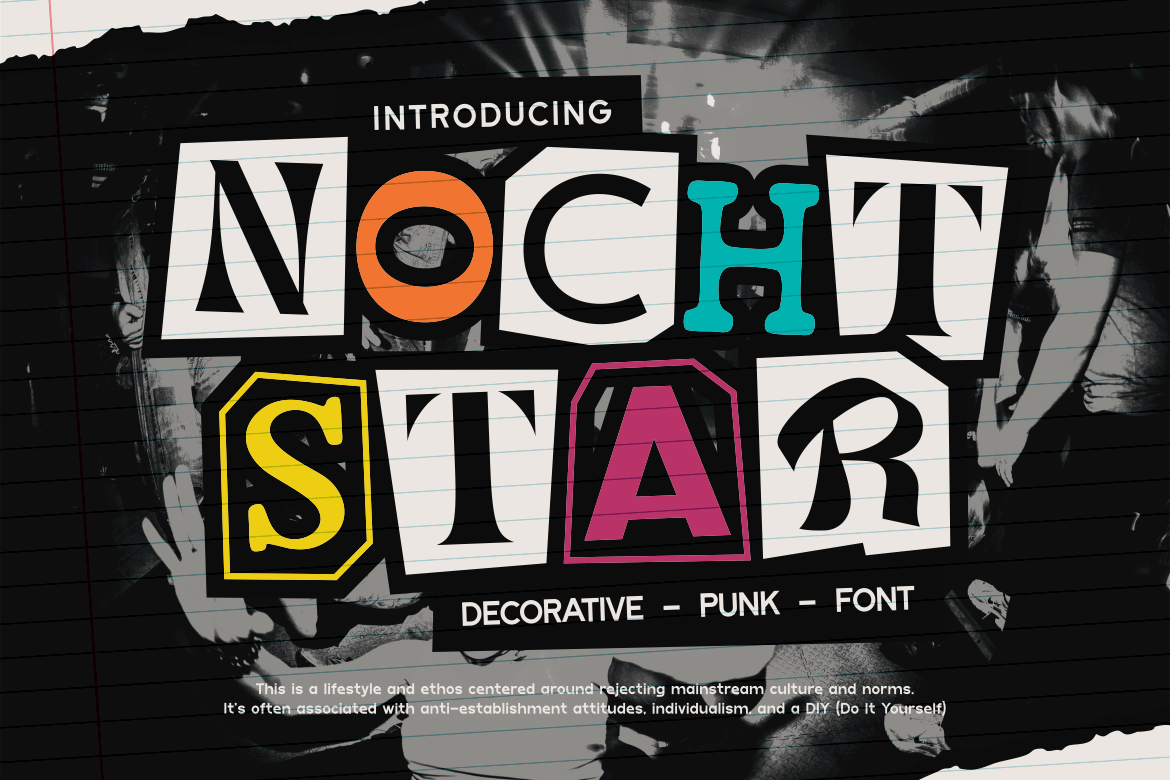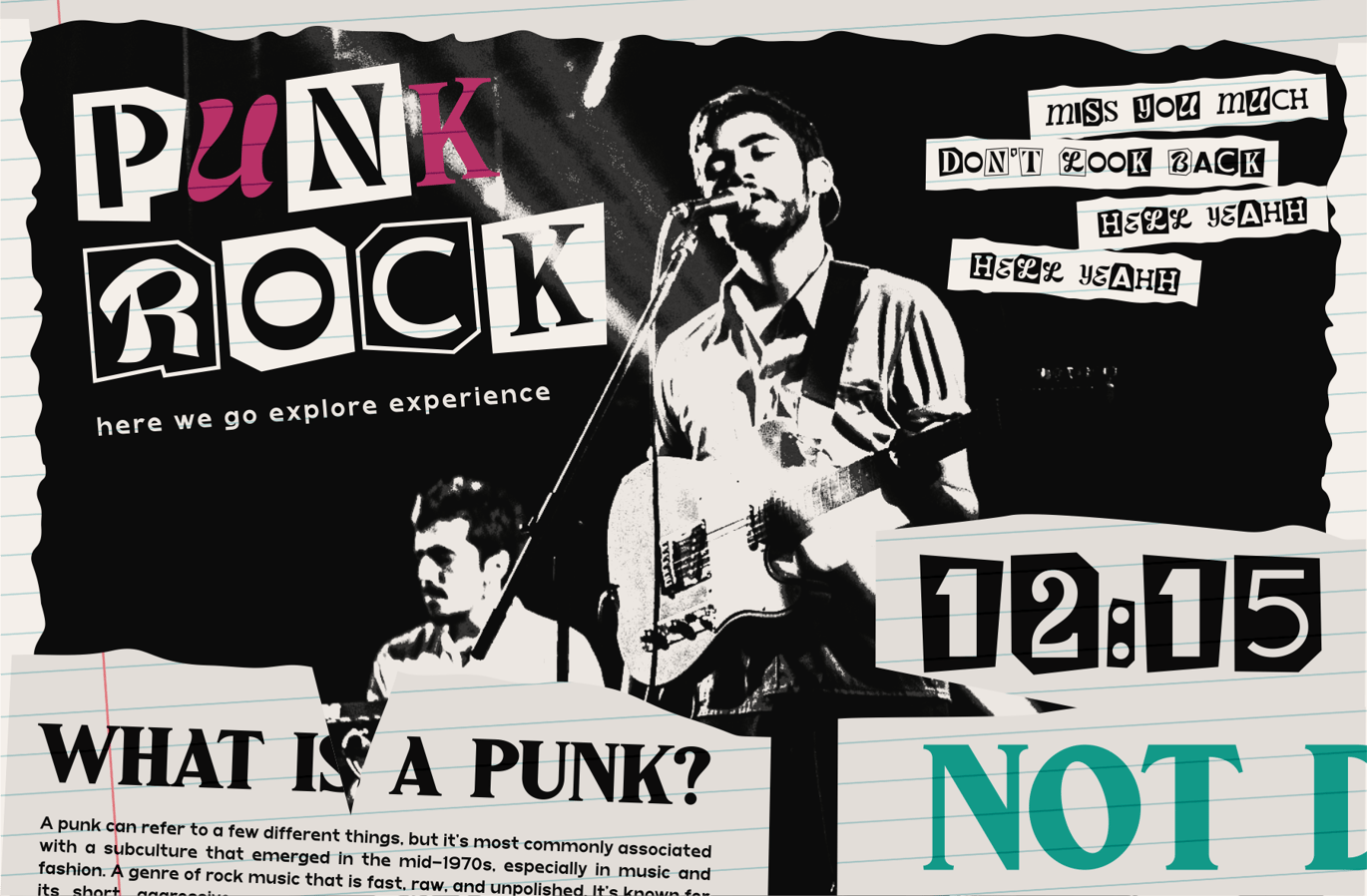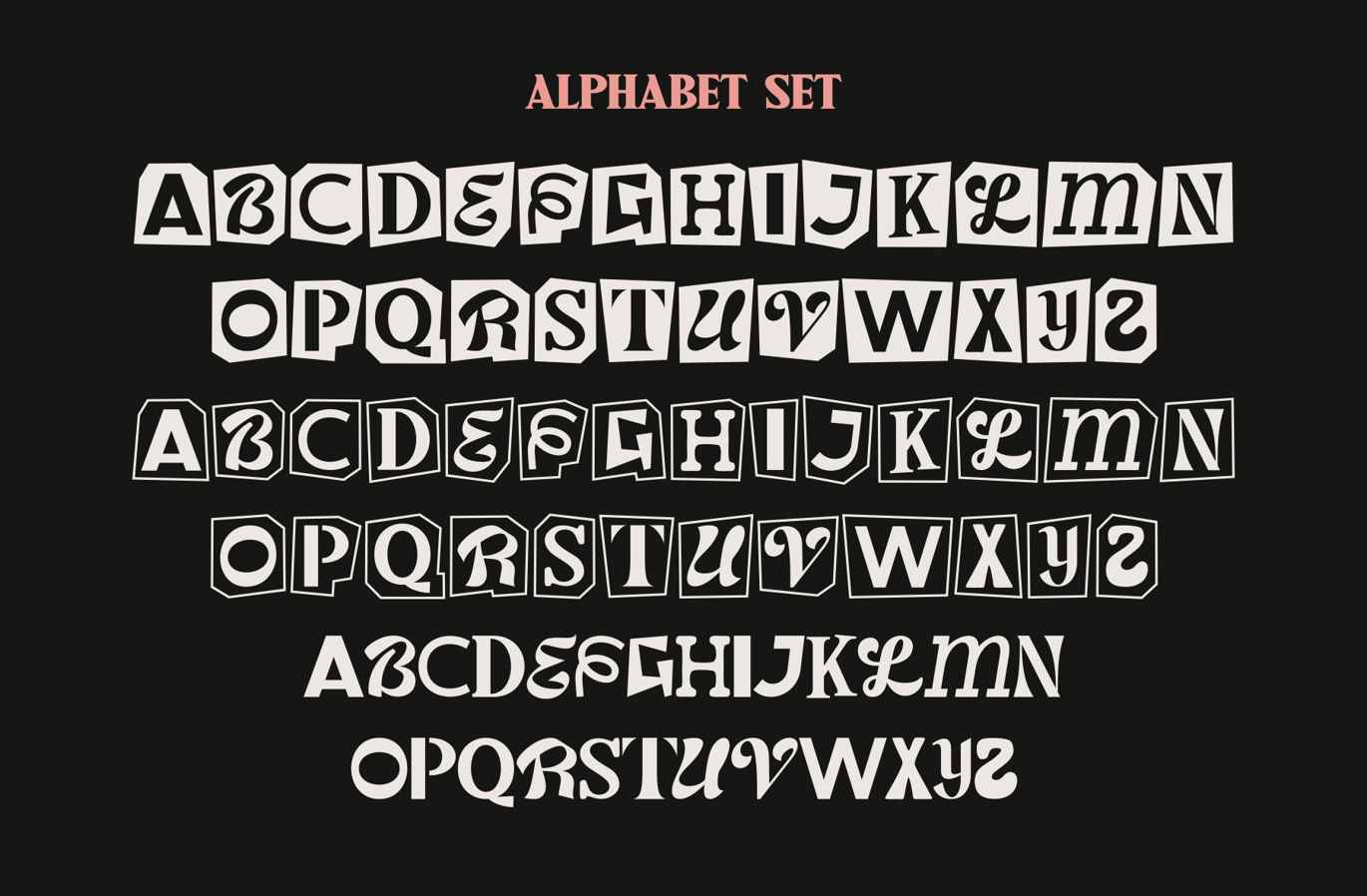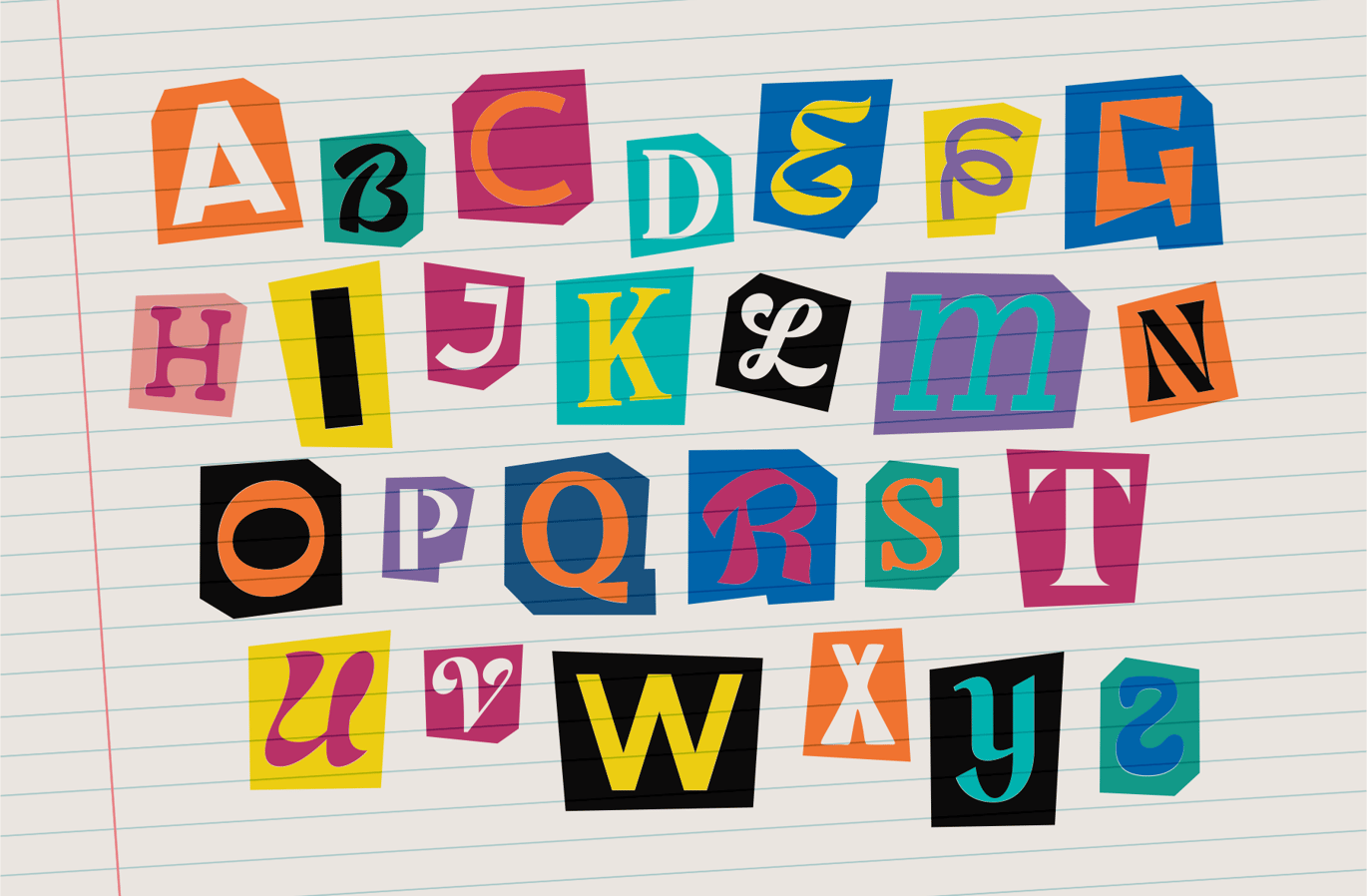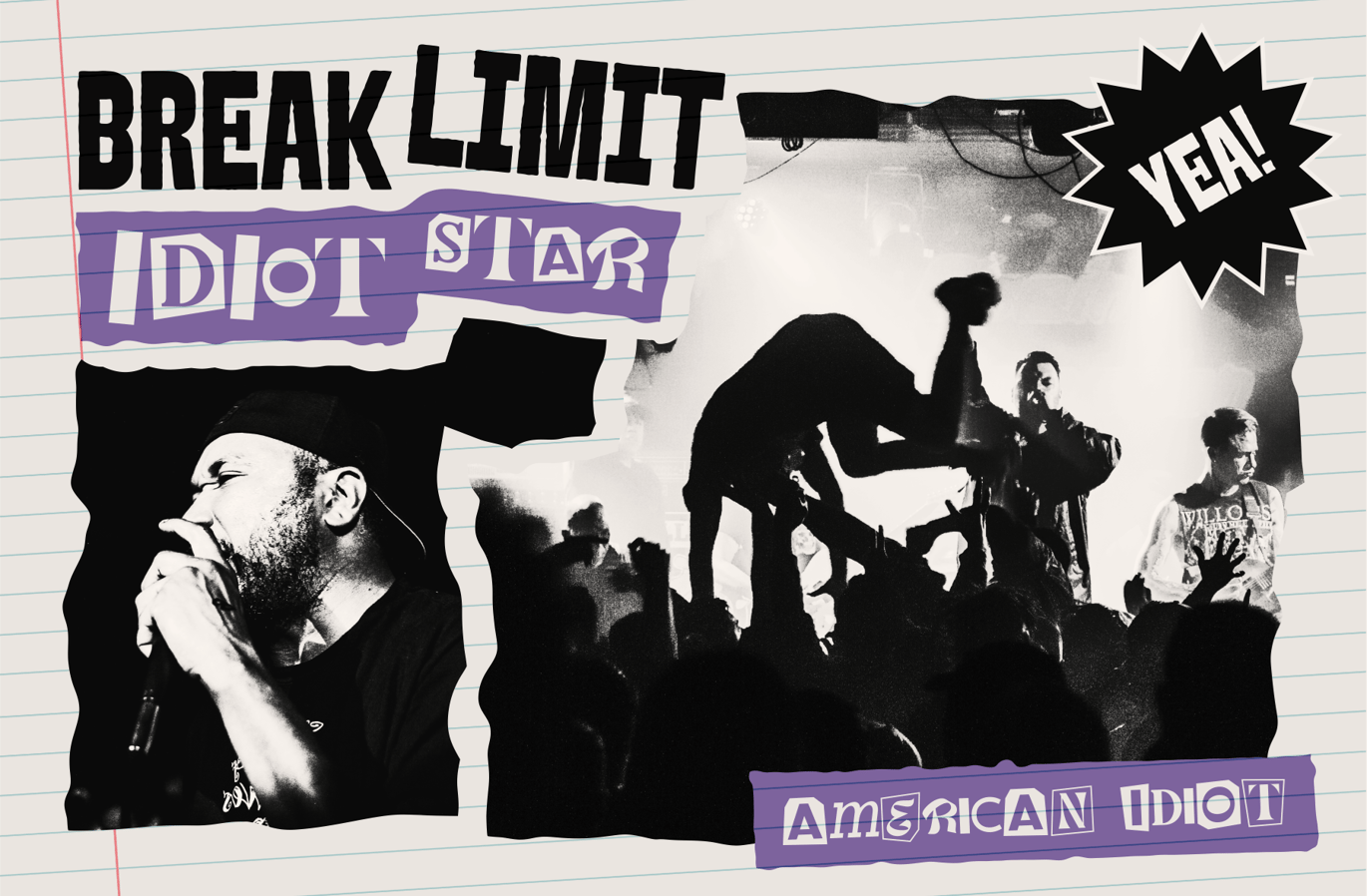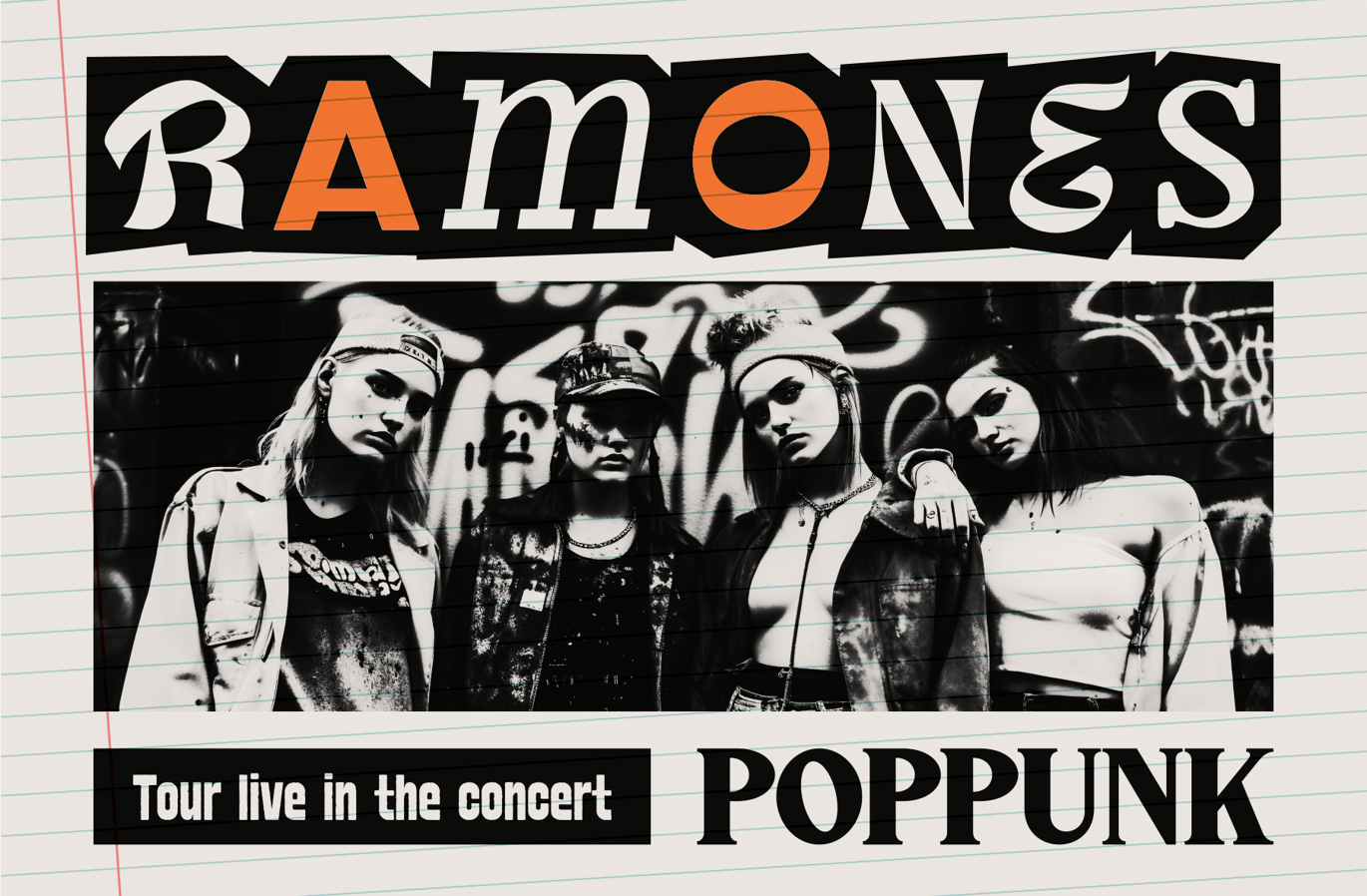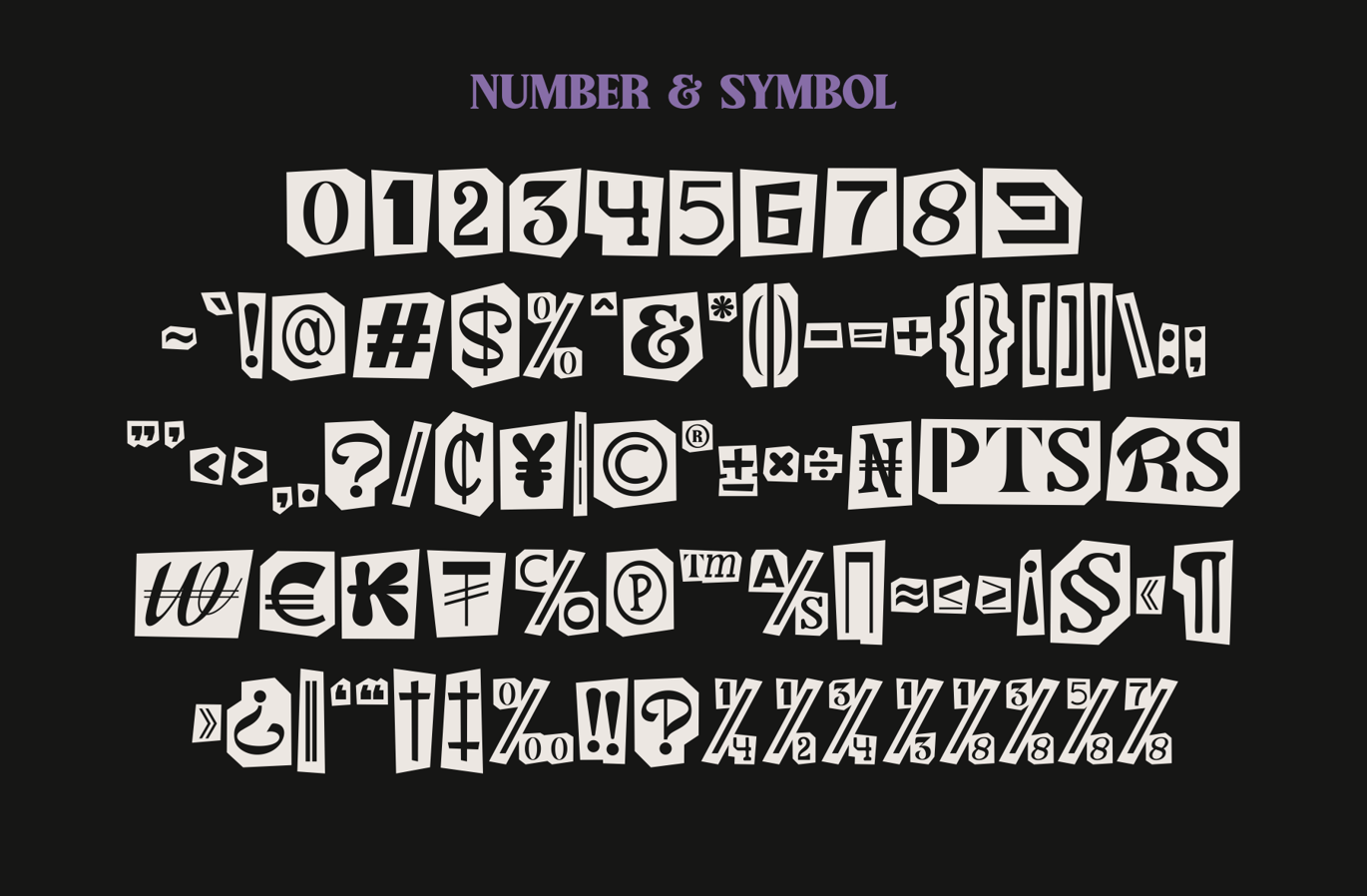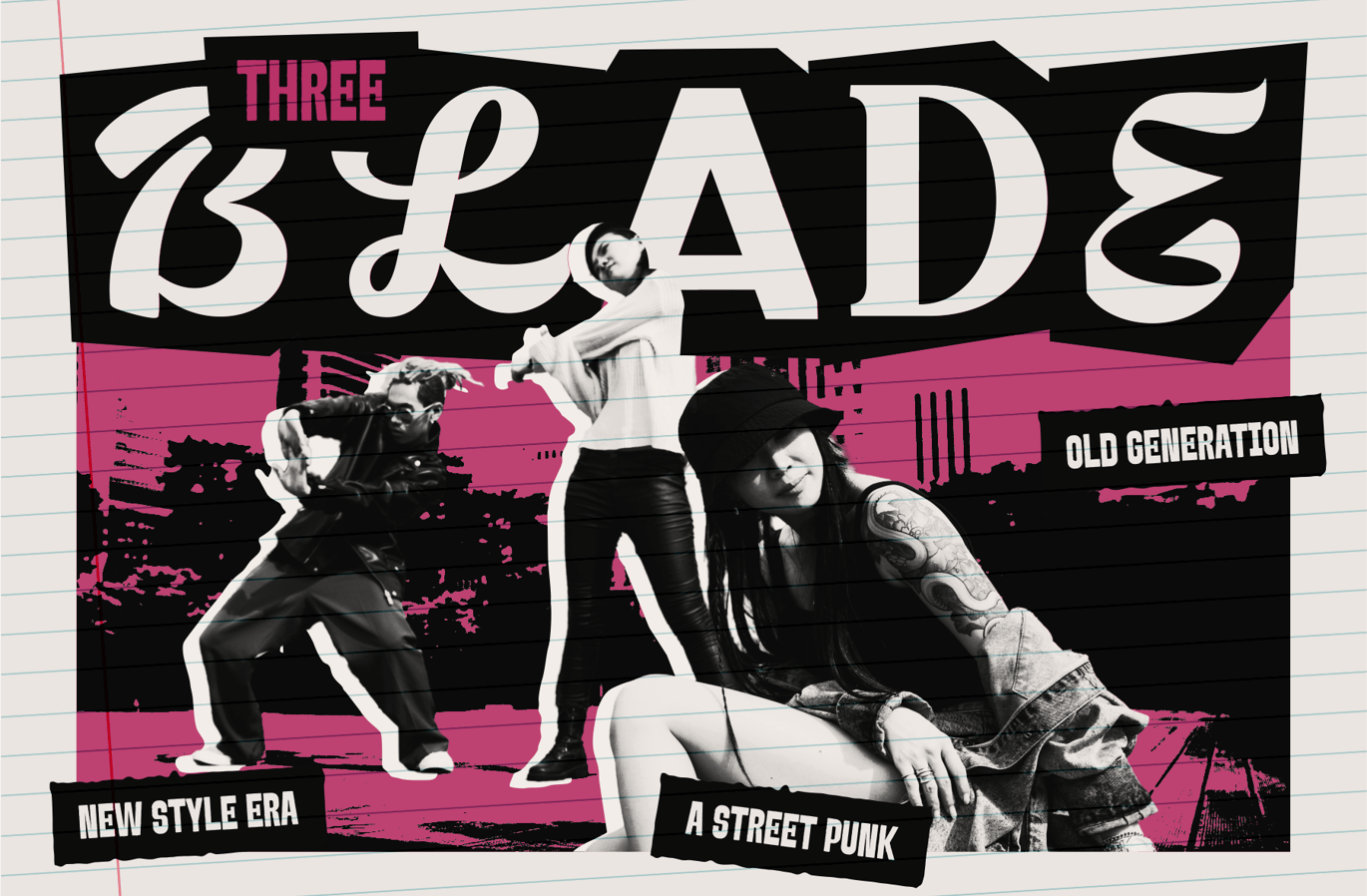
Nocht Star – Decorative Punk Font
Introducing our new product Nocht Star – Decorative Punk Font
Nocht Star – Decorative Punk Font is a distinctive typeface embodying the classic ransom style, blending vintage aesthetics with a gritty, rebellious edge. This font is particularly suitable for designs that require a bold, unconventional look and is available in three versatile options.